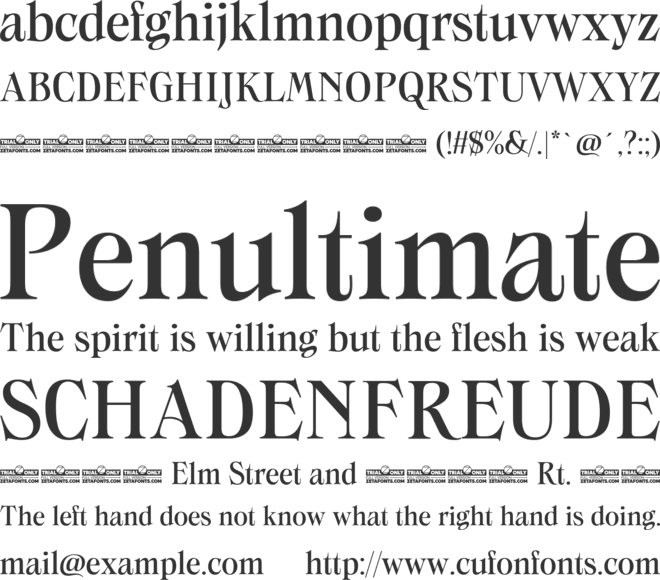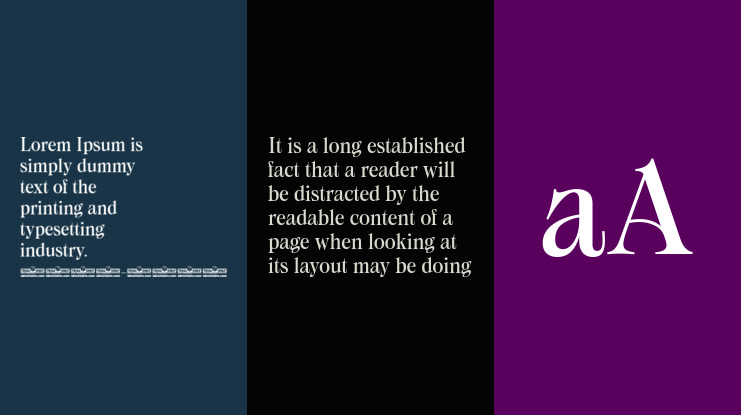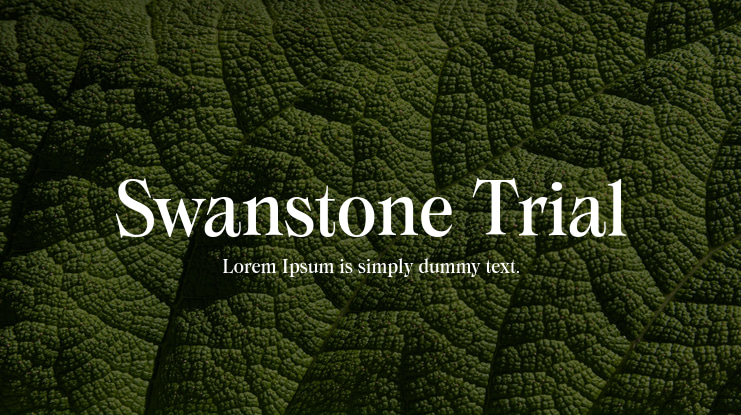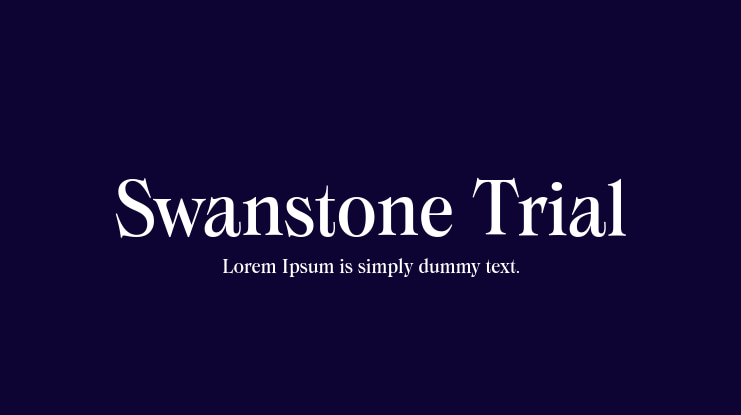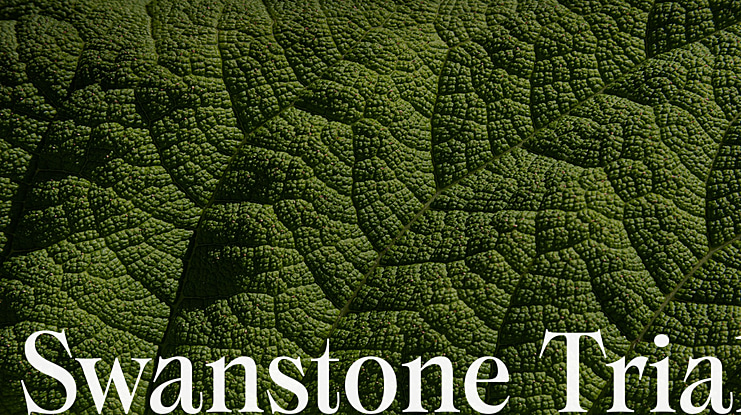
Swanstone Trial Font
Mario De Libero
Mario De Libero designed Swanstone while investigating XIX Century Old Style typefaces. Designs like Theophile Beaudoires Romana (1860) or Miller & Richards Modernized Old Style, that re-imagined the classical Venetian letterforms adding flared serifs and early Art Nouveau influences. In Italy, one of these fonts was Raffaello Bertieris Raffaello, which De Libero used as the starting point of his research in a contemporary retelling of these exuberant and sexily unsettling letterforms. Developed as a single weight to be released in our Zetafonts Singularity line, Swanstone will be available for a limited time as a gift to all subscribers of Zetafonts Type Club. Dont forget checking our next newsletters!